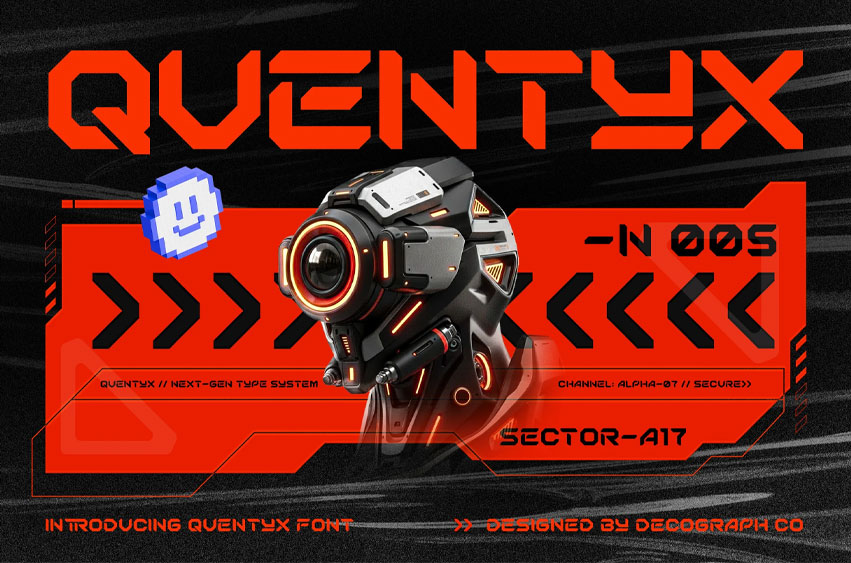
Quentyx Font is a sharp, modular sci-fi display font built for next-gen visuals. Angular cuts and high-tech geometry deliver aggressive, readable headlines that feel at home in gaming, cyberpunk branding, stream overlays, UI mockups, posters, and promo graphics.
Use tight or wide tracking to tune the vibe—from tactical HUD to bold esport identity. ** Features:** *Uppercase A–Z, *numerals, and *basic punctuation. *Ideal for logos, titles, and futuristic interfaces.